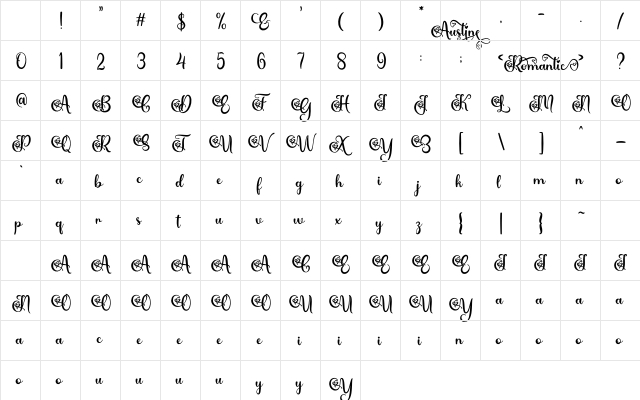
Complete Romantic AustineDemo Regular glyph index. Displaying only characters natively supported by Romantic AustineDemo Regular font.
Romantic AustineDemo is a composed and adaptable typeface that performs quietly and consistently across a wide range of design contexts.